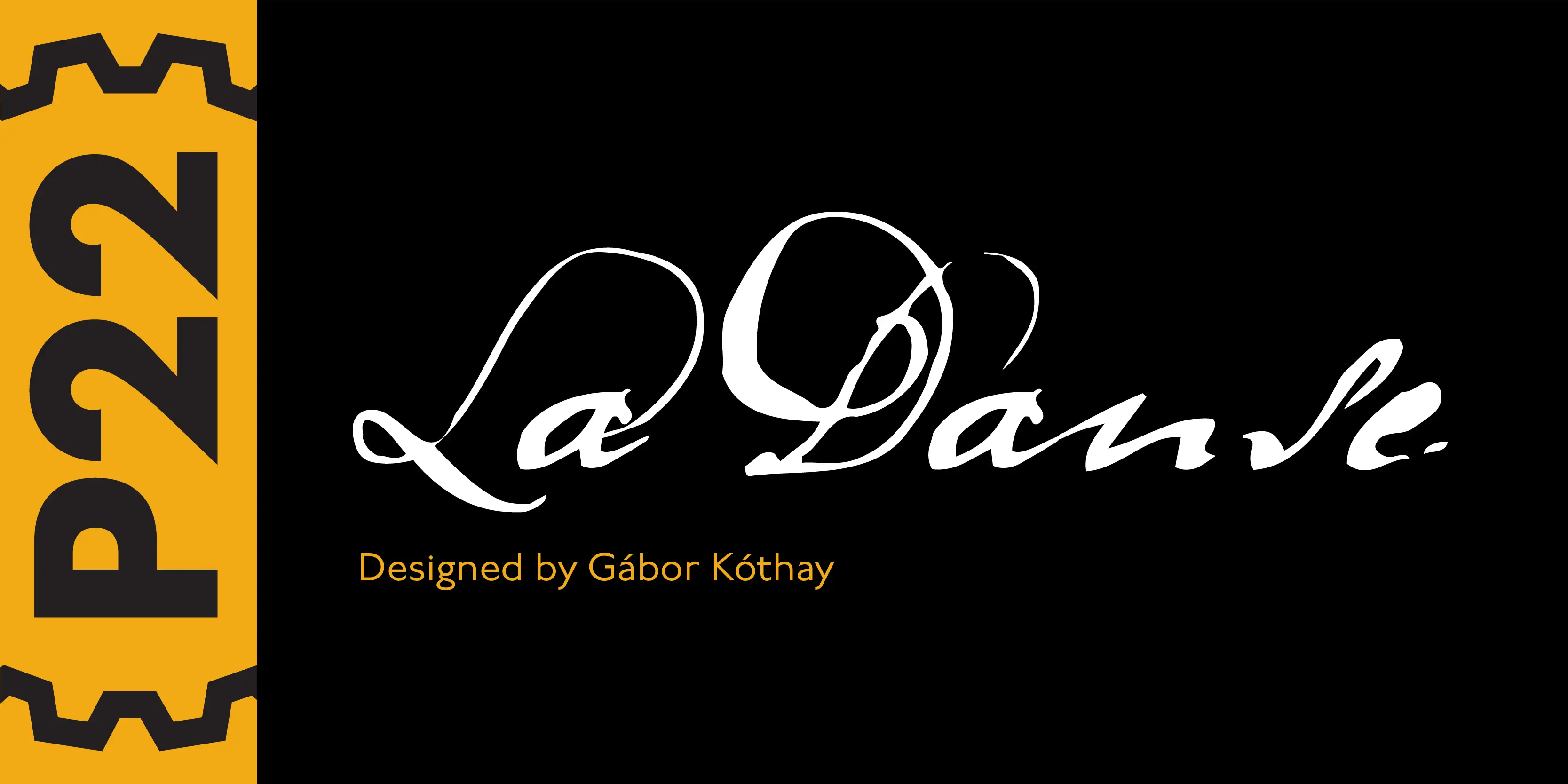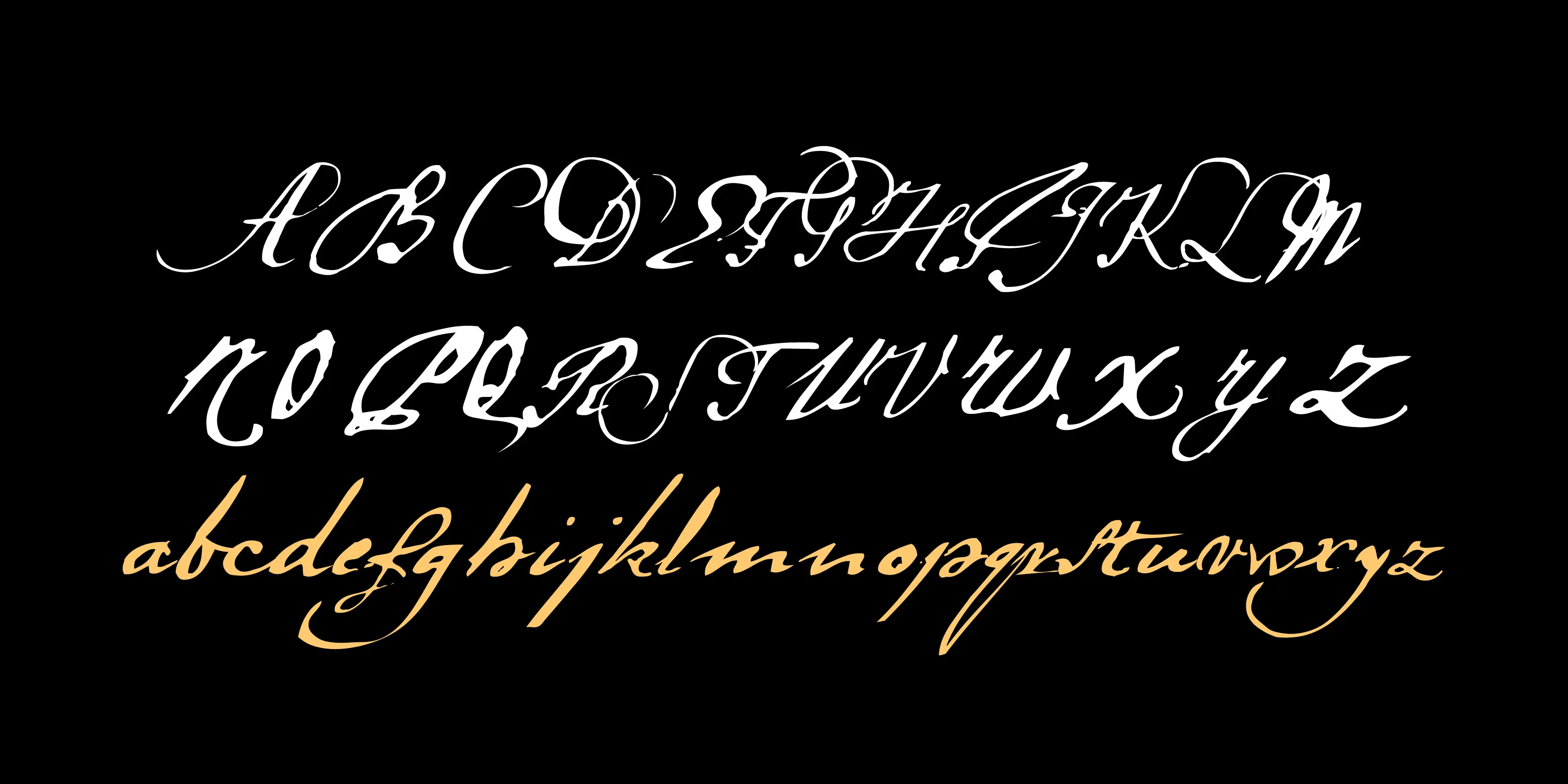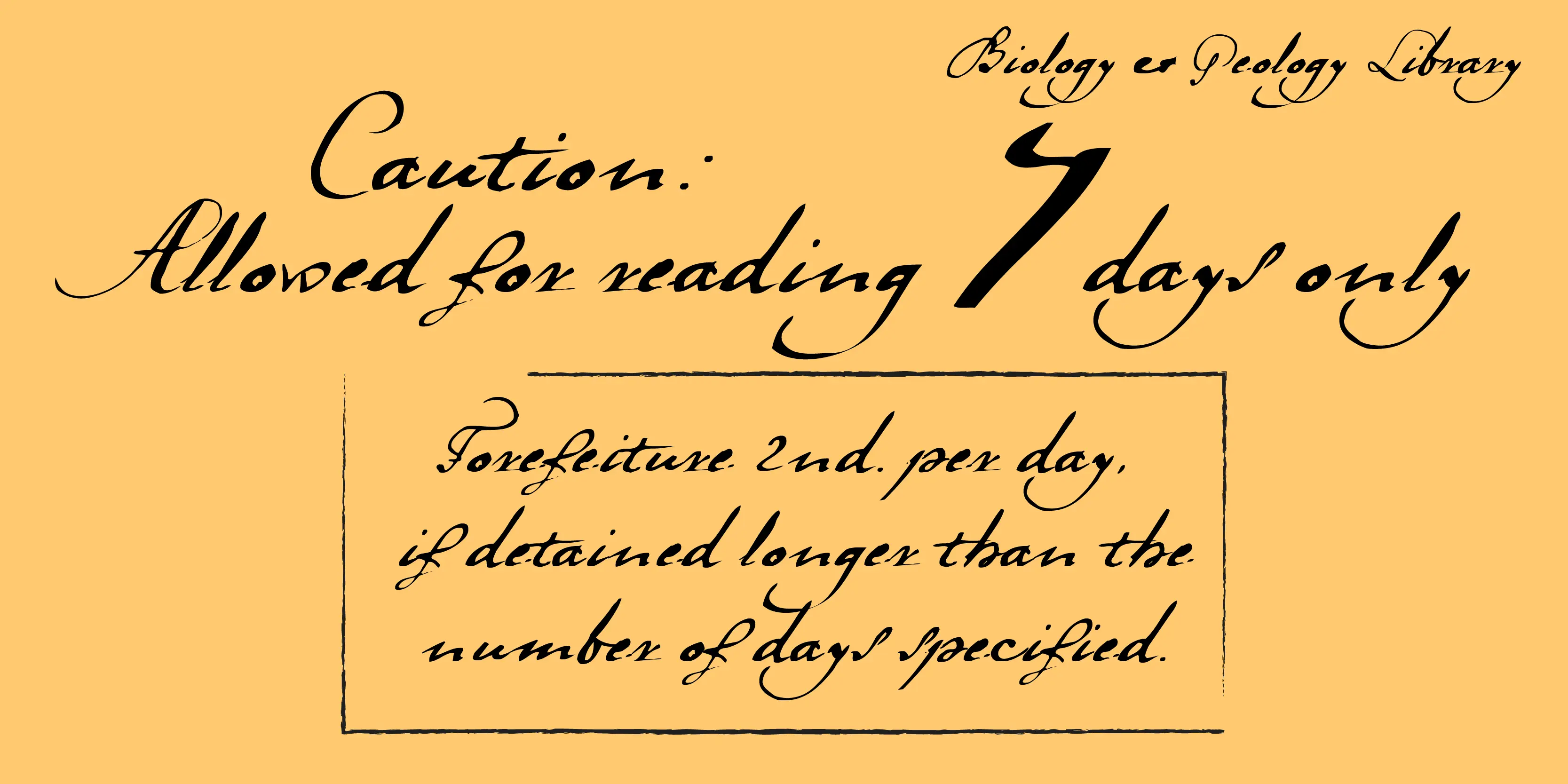
LaDanse Font
LaDanse
LaDanse is a ‘facsimile’ font, based on the manuscript of an inventory found in a rare Type Specimen of the Jesuit Academy Press of Tyrnavia (1773). The manuscript was written in an archaic Latin alphabet therefore some modern interpretations have been inserted.